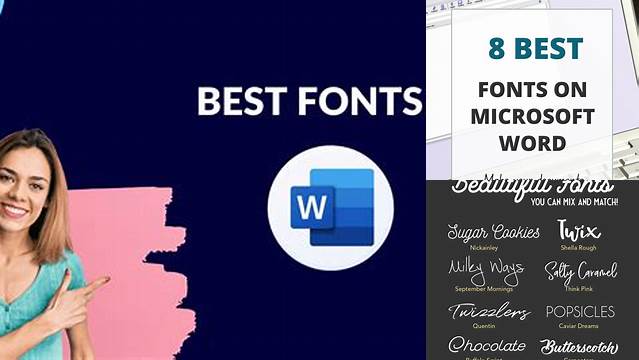
Stunning Fonts In Word: Make Your Docs Pop!
Hey guys! Ever feel like your Microsoft Word documents are looking a little...blah? You're not alone! A huge part of making your work stand out is choosing the right font. I mean, think about it – a beautifully designed font can instantly elevate your document from 'meh' to 'amazing'. This article is your ultimate guide to finding and using beautiful fonts in MS Word, so let's dive in and transform your documents!
1. Exploring Pre-Installed Beautiful Fonts in MS Word
So, you might be thinking, "Okay, where do I even start?" Well, the good news is that MS Word already comes packed with a ton of fantastic font options. You just need to know where to look and what to look for! Let's start by exploring the fonts that are already at your fingertips. When we talk about beautiful fonts in MS Word, we often overlook the classics. These pre-installed fonts are tried and true for a reason. They're legible, versatile, and can add a touch of elegance to your documents. Think about fonts like Times New Roman, Garamond, and Calibri – they're professional but can still be used creatively. The key is understanding the nuances of each font. For example, Times New Roman has a traditional, slightly formal feel, while Garamond is more elegant and refined. Calibri, on the other hand, is a modern sans-serif font that's clean and readable. To really master using these pre-installed fonts, experiment with different sizes, weights (bold, italic), and spacing. You'd be surprised how much of a difference these subtle tweaks can make! You can also try pairing these fonts with other design elements, such as headings and subheadings in different styles, to create visual interest. Remember, the goal is to find beautiful fonts in MS Word that enhance your message and make your document visually appealing.
3. Best Websites for Finding Beautiful Fonts
Speaking of finding fonts online, let's dive a little deeper into some of the best websites out there. Finding the right font can feel like searching for a needle in a haystack, but these resources can make the process a whole lot easier. So, where can you find those perfect beautiful fonts? There are so many websites out there offering free and premium fonts, but some definitely stand out from the crowd. First up, we have Google Fonts. This is a fantastic resource for free, open-source fonts that are optimized for the web. The best part? They're super easy to use and integrate into your projects. DaFont is another popular option, offering a huge selection of fonts in various styles. Just be sure to check the license before using a font for commercial purposes. Font Squirrel is another great site for free fonts, and they also have a handy font identifier tool that can help you find similar fonts to one you've seen elsewhere. For premium options, MyFonts and Adobe Fonts are worth checking out. These sites offer a wide range of high-quality fonts, often designed by professional typographers. They can be a bit pricier, but the investment can be worth it if you're looking for something truly unique and polished. Remember, the key to finding beautiful fonts in MS Word is to explore different options and experiment with what works best for your project. These websites are a great starting point!
5. Pairing Fonts for a Professional Look
Now for the fun part: font pairing! This is where you can really get creative and elevate the visual appeal of your documents. But how do you choose fonts that look good together? Let's explore some tips and tricks for creating harmonious font pairings and using beautiful fonts in MS Word to their full potential. Pairing fonts effectively is all about creating contrast and balance. You want to choose fonts that complement each other without clashing. A general rule of thumb is to pair a serif font (like Times New Roman or Garamond) with a sans-serif font (like Arial or Helvetica). Serif fonts have those little “feet” or strokes at the end of the letters, while sans-serif fonts are cleaner and more modern. For example, you could use a serif font for your body text to make it easy to read, and a sans-serif font for your headings to create visual interest. Another tip is to consider the personality of the fonts you're pairing. Do they have a similar mood or tone? If you're going for a formal, professional look, you might choose classic, elegant fonts. If you're aiming for something more playful and creative, you can experiment with bolder and more unique fonts. Don't be afraid to try out different combinations and see what works best for your project. There are also plenty of online resources that can help you with font pairing, such as font pairing generators and articles with pre-made font combinations. Ultimately, the key to finding beautiful fonts in MS Word that work well together is experimentation and a good eye for design.
6. Serif Fonts for Formal Documents
Let's dive into serif fonts a bit more. These classic fonts are known for their little